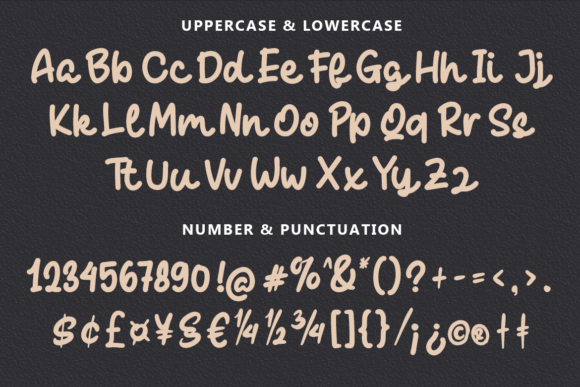
Gelaniyo Font: Elevate Your Designs with a Tasteful and Daring Handwritten Style
In the world of typography, fonts play a crucial role in conveying the tone and personality of a design. A well-chosen font can make all the difference in creating a lasting impression on your audience. If you’re looking for a font that exudes confidence, dynamism, and a touch of nostalgia, look no further than Gelaniyo Font. In this article, we’ll dive into the world of Gelaniyo Font, exploring its features, benefits, and uses, as well as provide tips on how to make the most of this stunning handwritten font.
What is Gelaniyo Font?
Gelaniyo Font is a tasteful and daring handwritten font, carefully crafted to give your headlines and logotype projects a stylish touch. This font is designed to read as strong, confident, and dynamic, making it perfect for designers looking to add a bold and eye-catching element to their work. With its unique blend of classic and modern elements, Gelaniyo Font is sure to add tons of nostalgic character to your designs.
Whether you’re working on a branding project, creating a logo, or designing a poster, Gelaniyo Font is an excellent choice. Its versatility and flexibility make it suitable for a wide range of applications, from digital media to print materials.
Key Features of Gelaniyo Font
- Handwritten style: Gelaniyo Font boasts a beautiful, handwritten style that adds a personal touch to your designs.
- Tasteful and daring: This font is designed to make a statement, with a bold and confident aesthetic that’s sure to grab attention.
- Strong and dynamic: Gelaniyo Font reads as strong and dynamic, making it perfect for headlines and logotype projects.
- Nostalgic character: With its unique blend of classic and modern elements, Gelaniyo Font adds a touch of nostalgia to your designs.
- Versatile: This font is suitable for a wide range of applications, from digital media to print materials.
Benefits of Using Gelaniyo Font
So, why choose Gelaniyo Font for your next design project? Here are just a few benefits of using this stunning handwritten font:
- Adds personality to your designs: Gelaniyo Font is a unique and eye-catching font that adds a personal touch to your designs.
- Enhances brand identity: With its bold and confident aesthetic, Gelaniyo Font can help to create a strong brand identity that sets you apart from the competition.
- Increases legibility: Despite its bold style, Gelaniyo Font is surprisingly legible, making it perfect for use in headlines and logotype projects.
- Flexible: This font can be used in a variety of contexts, from digital media to print materials.
Tips for Using Gelaniyo Font
To get the most out of Gelaniyo Font, here are a few tips to keep in mind:
- Use it sparingly: While Gelaniyo Font is a stunning font, it’s best used sparingly to avoid overwhelming your design.
- Pair it with contrasting fonts: To create visual interest, try pairing Gelaniyo Font with contrasting fonts that complement its bold style.
- Experiment with colors: Gelaniyo Font looks great in a variety of colors, so don’t be afraid to experiment and find the perfect hue for your design.
- Consider the context: Before using Gelaniyo Font, consider the context in which it will be used. This font is perfect for headlines and logotype projects, but may not be suitable for body text.
Who Can Benefit from Gelaniyo Font?
Gelaniyo Font is a versatile font that can benefit a wide range of designers and businesses. Here are just a few examples:
- Graphic designers: Gelaniyo Font is a great addition to any graphic designer’s toolkit, perfect for use in a variety of projects, from branding and logos to posters and flyers.
- Marketing agencies: With its bold and confident aesthetic, Gelaniyo Font is perfect for marketing agencies looking to create eye-catching campaigns that grab attention.
- Small business owners: Gelaniyo Font is a great choice for small business owners looking to create a strong brand identity that sets them apart from the competition.
- Artists and creatives: This font is also perfect for artists and creatives looking to add a touch of personality to their work.
In conclusion, Gelaniyo Font is a stunning handwritten font that can elevate your designs and add a touch of personality to your work. With its bold and confident aesthetic, this font is perfect for headlines and logotype projects, and can benefit a wide range of designers and businesses. By following the tips outlined in this article, you can make the most of Gelaniyo Font and create designs that are truly unforgettable.